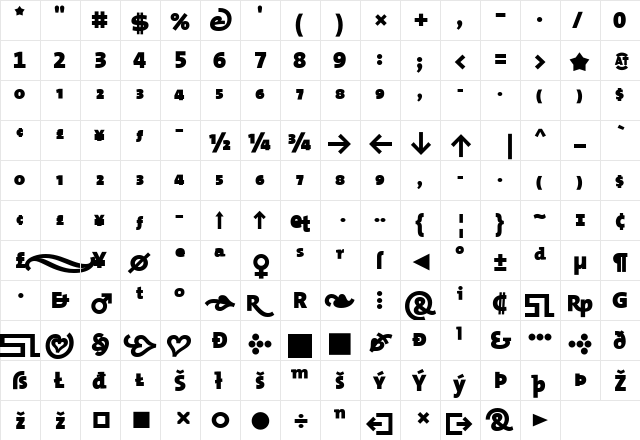
TheMixBlack Roman
Design Context for TheMixBlack Typeface
TheMixBlack offers clean, dependable letterforms without strong stylistic allegiance, making it a practical choice for designers who need flexibility.